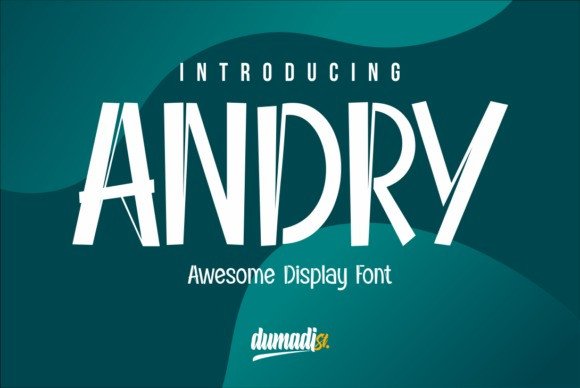
Andry Display Font
Andry is a simple and relaxed display font. Whether it’s for web, print, moving images or anything else – Andry will look spectacular.